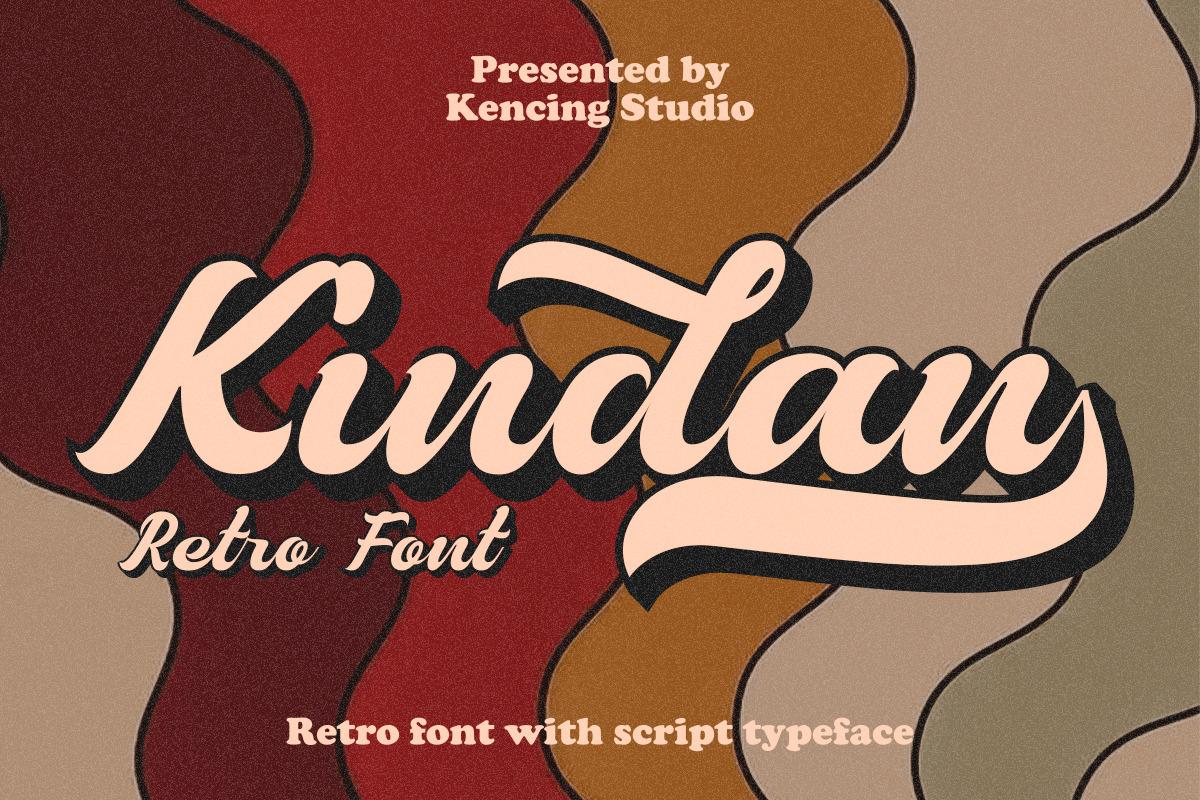
Kindan - Retro Font
Kindan, a well-shaped font that gives a retro power as a display typeface. It’s shape makes it looks eye-catching to enhance your design. The groovy touch to the Kindan font, makes it a fun typeface to explore with! Kindan is very suitable for a variety design, such as posters, Invitations, greeting cards, logo, and many more. Embrace your design with Kindan to make your work miraculous! Octangle font will also include some features :